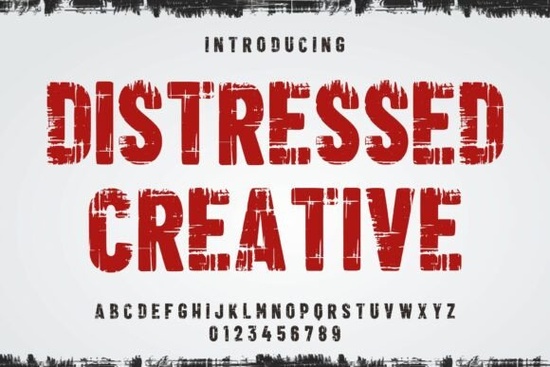
If you're looking for a bold, weathered display font that adds instant character to posters, t-shirts, or limited-edition prints, the Distressed Creative Font is worth your attention. It’s not a subtle typeface it’s built for impact. Think stamped metal, cracked concrete, and spray-painted walls: this stencil-style font carries texture in every letter, with intentional roughness, uneven edges, and a grunge finish that feels hand-applied rather than digitally generated. Unlike polished sans-serifs or delicate scripts, Distressed Creative leans into imperfection making it ideal for creatives who want their headlines to feel lived-in, authentic, and visually grounded.
When does this font work best?
This isn’t a font for body text or formal reports. It shines where personality matters more than precision: vintage band merch, urban streetwear labels, craft brewery can labels, DIY zine covers, or festival posters that need to stand out on a brick wall or crowded Instagram feed. Because of its strong visual weight and tactile quality, it pairs well with high-contrast photography, grainy film scans, or layered paper textures. You’ll often see it used for short phrases shop names, album titles, event dates where legibility at scale is balanced by expressive grit.
It’s especially useful for print-on-demand sellers who want to differentiate their store from generic designs. A clean, modern font might blend in; Distressed Creative helps your product feel like it belongs in a record shop window or a Brooklyn pop-up not just another algorithm-driven listing.
How does it compare to other bold display fonts?
While many bold fonts rely on weight alone, Distressed Creative uses texture as a design tool. That sets it apart from options like bold font collections, which prioritize clarity and versatility over mood. It also differs from athletic-inspired choices like mascot college outline fonts, which lean into retro sports energy but lack the raw, industrial edge. For contrast, consider cowboy varsity fonts great for Americana themes but smoother and less abrasive. Or Abraar Font, which offers elegant contrast but none of the weathered stamp effect.
If you’ve tried other distressed fonts and found them too chaotic or inconsistent, Distressed Creative stands out for its balanced irregularity: letters are intentionally varied, but spacing and baseline alignment stay reliable enough for real-world use no awkward gaps or clipped descenders when scaling up for signage or embroidery.
Because it’s a display font, avoid using it below 24pt in print or 36px online unless you’re going for intentional fragmentation (e.g., background texture or distressed overlays). At larger sizes, the texture becomes part of the message not a distraction.
Where to use it without overdoing it
- T-shirt graphics: Works especially well on dark fabric the grunge effect reads clearly without needing heavy outlines.
- Flyers & posters: Pair with a neutral sans-serif for body copy (like Montserrat or Open Sans) to keep hierarchy clear.
- Small-batch packaging: Sticker sheets, soap labels, or candle jars benefit from its handmade vibe even if printed digitally.
- Social media banners: Use cropped sections (like just the “R” or “T”) as graphic elements, not full words.
One thing to keep in mind: because of its density and texture, Distressed Creative doesn’t scale down gracefully. If you need something similar but more flexible for mixed-use projects, the Distressed Creative Font is a focused choice not a Swiss Army knife, but a well-made chisel.
For designers building a cohesive brand language, this font fits naturally alongside distressed brushes, halftone overlays, and analog photo filters. It’s not about chasing trends it’s about choosing tools that match your voice. And if your voice is loud, unpolished, and rooted in real texture, this one earns its place in your toolkit.